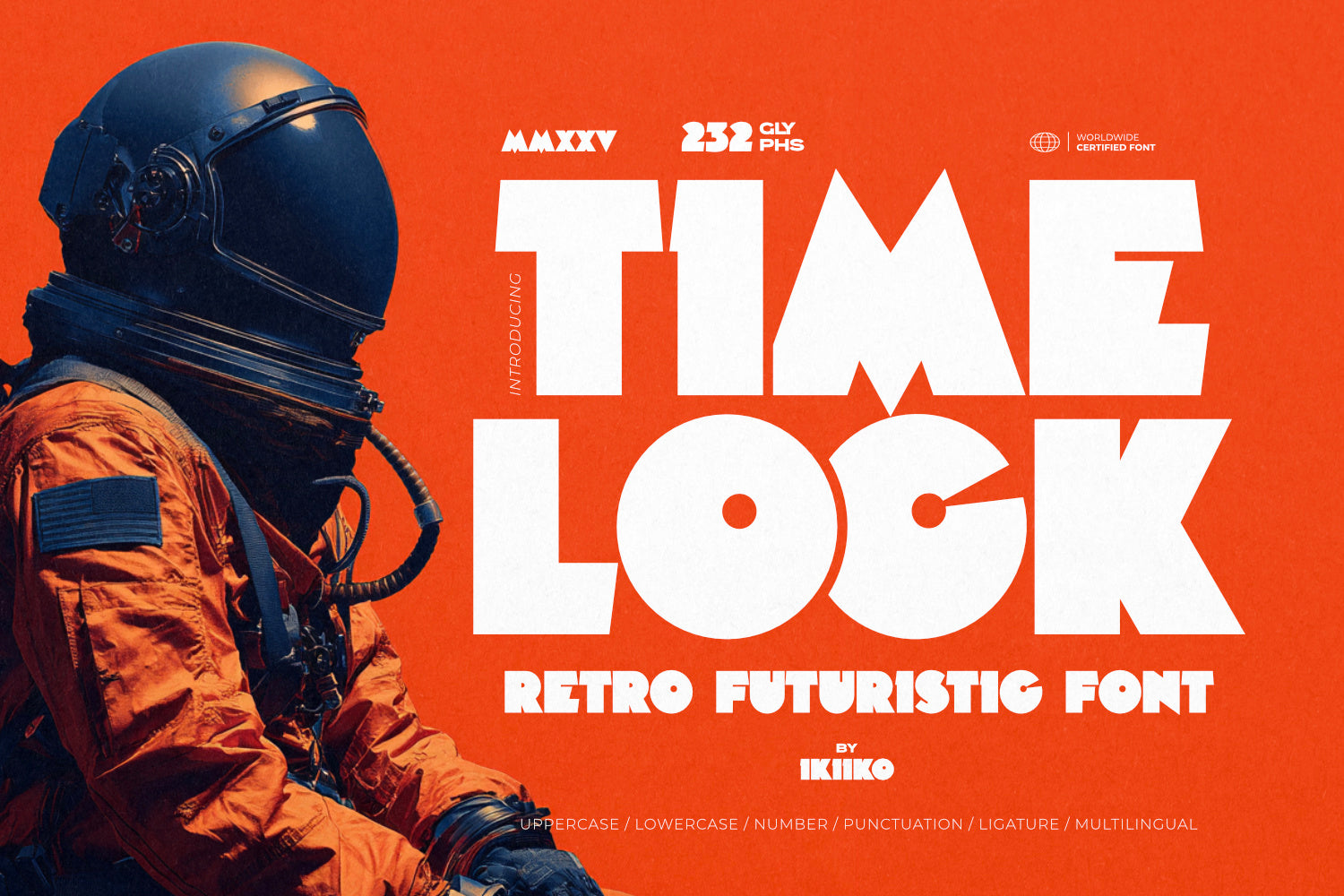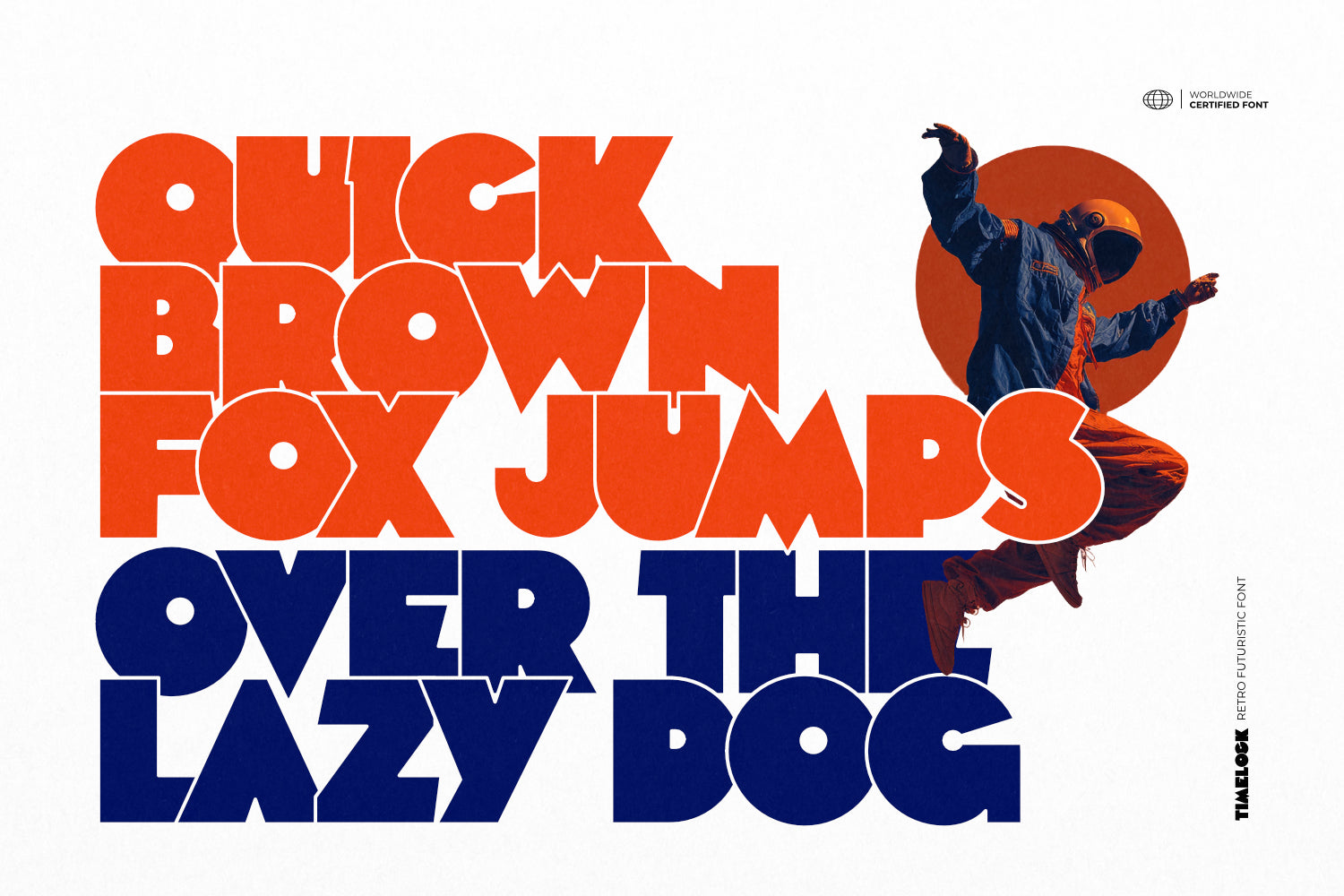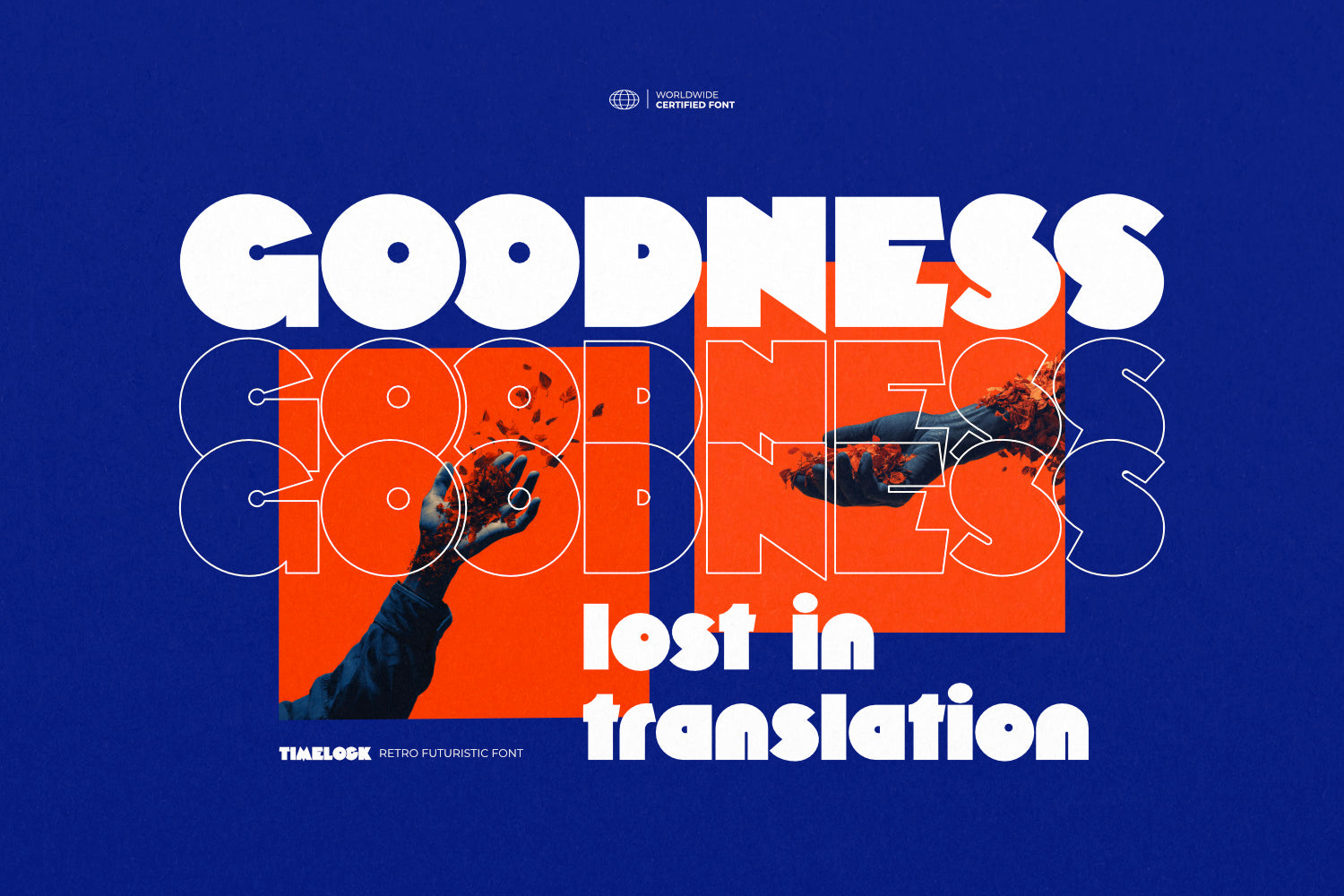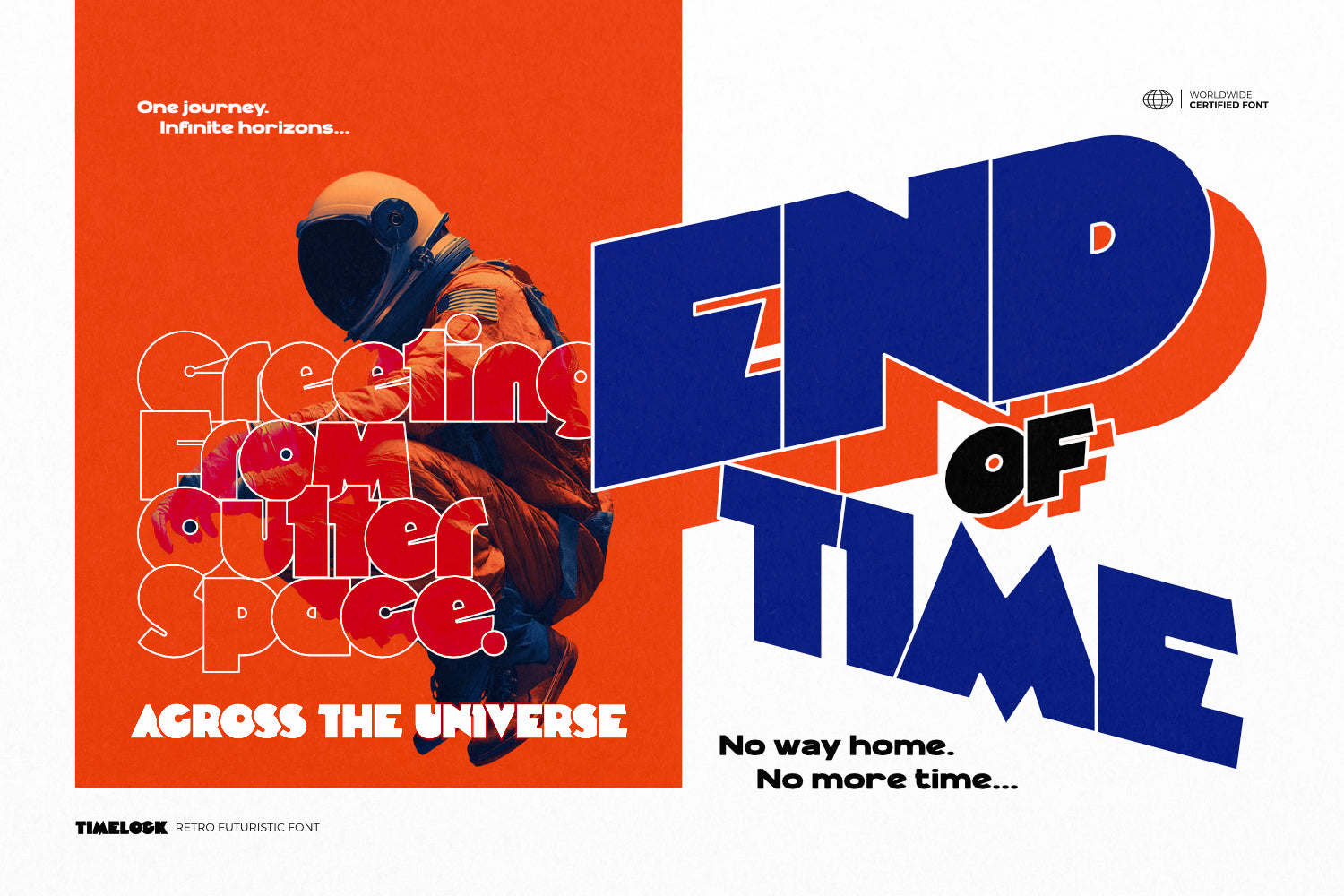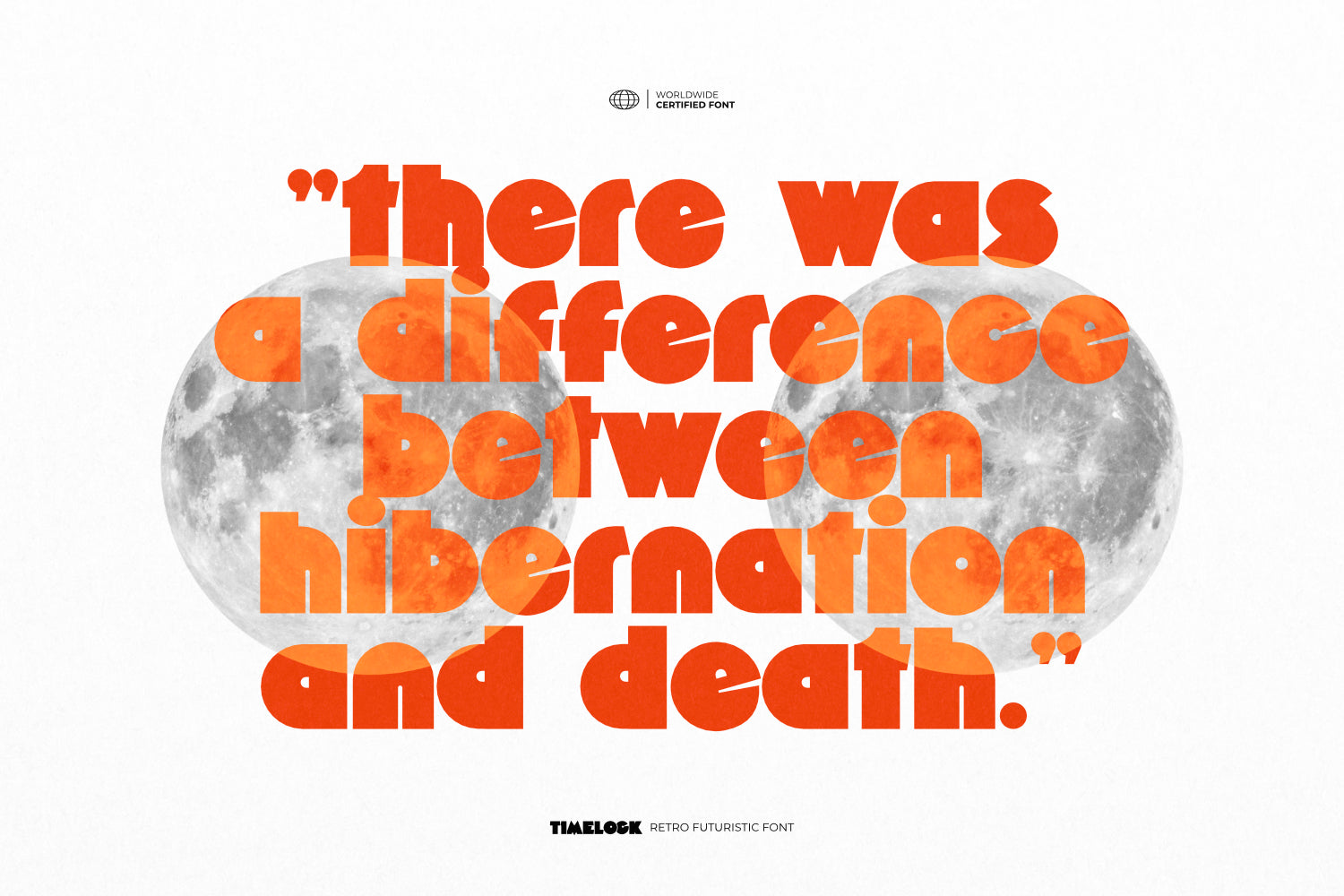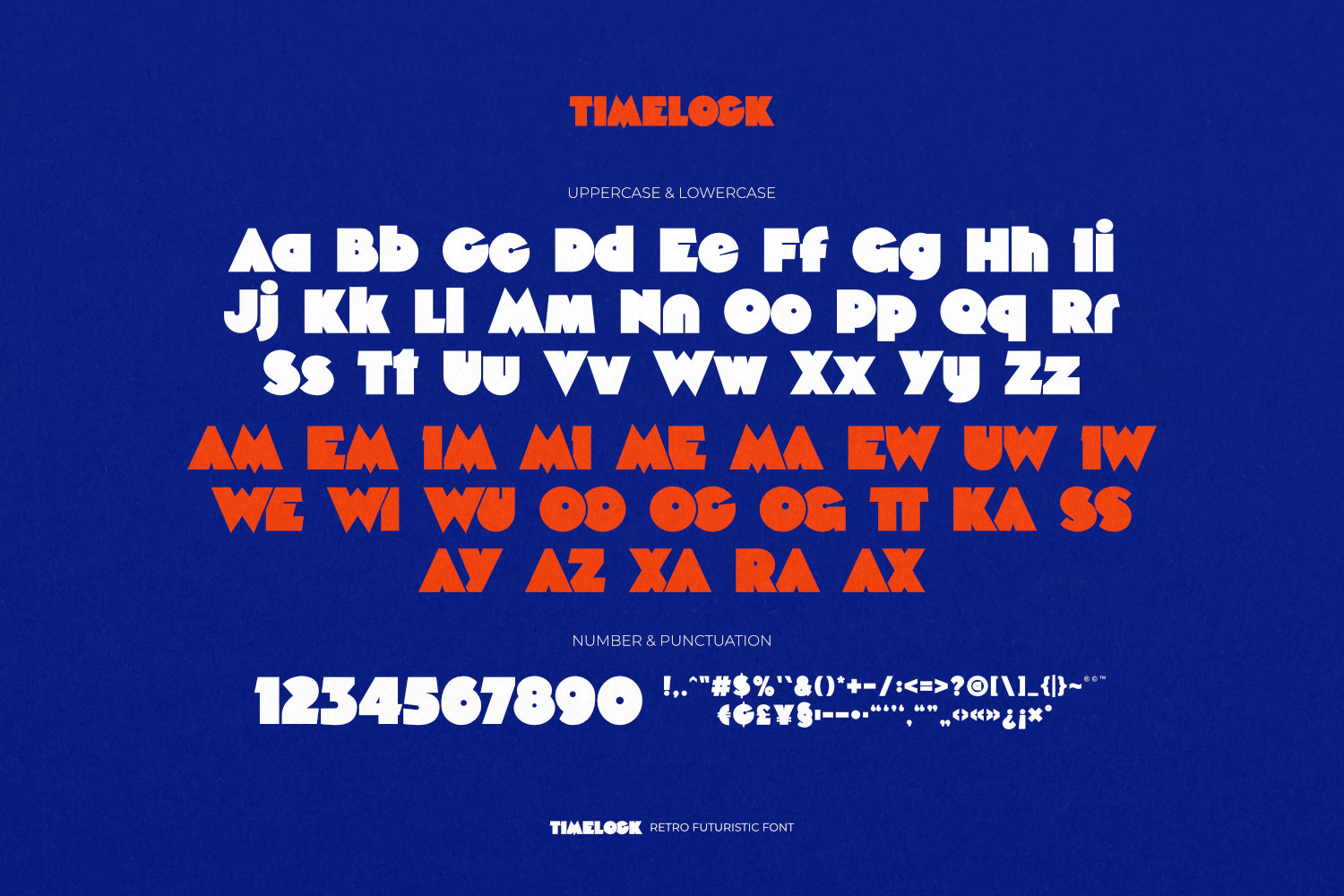
Timelock - Retro Futuristic Font
Proudly present Timelock - Retro Futuristic Font, created by ikiiko.
Unlock a visual blast from the past—Timelock is a bold, retro-futuristic font that captures the magnetic spirit of the 80s with a forward-looking twist. Designed for dreamers, creators, and rule-breakers, this chunky-style, bold sans serif typeface fuses geometric shapes with high-impact grooves, delivering the perfect balance between nostalgic funk and future vision.
Crafted with a keen eye for editorial flair, Timelock is ideal for eye-grabbing headlines, sleek advertising, and stylish retro branding. The thick curves and clean lines pulse with Retrowave energy, making every word you set feel like it belongs on a neon-lit poster, arcade game screen, or a vintage sci-fi mag cover.
From digital campaigns to magazine layouts, Timelock is your ticket to an era where groovy vibes and futuristic flair collide. Whether you’re channeling synthwave moods or reimagining bold retro aesthetics, this font was made to stand loud and proud.
:: Uppercase & Lowercase
:: Numbers & Punctuation
:: Ligature
:: Multilingual Support